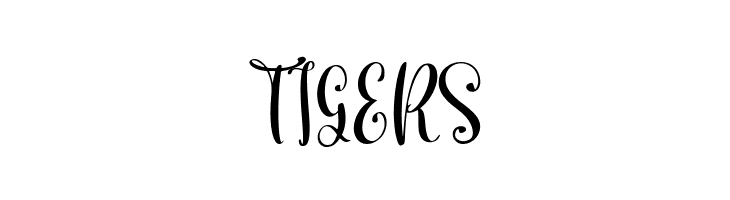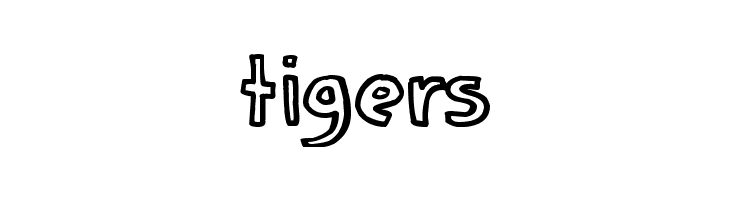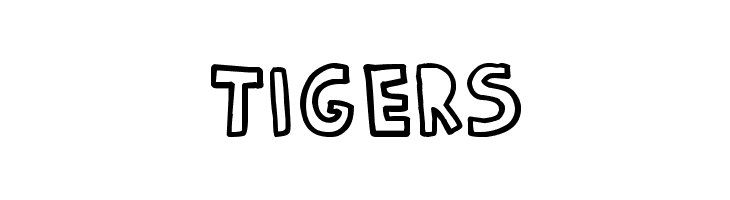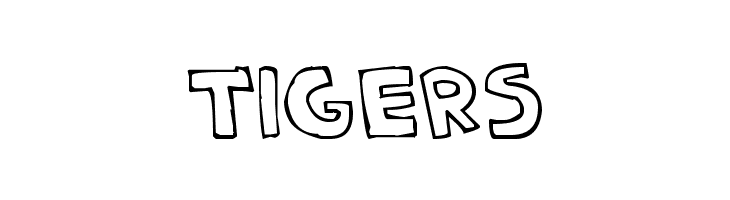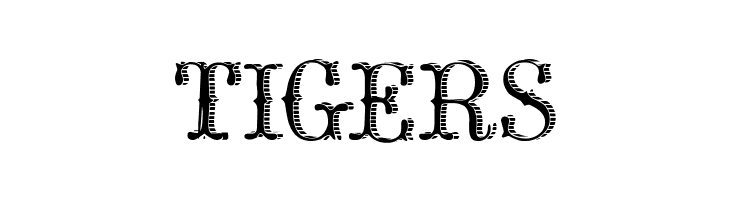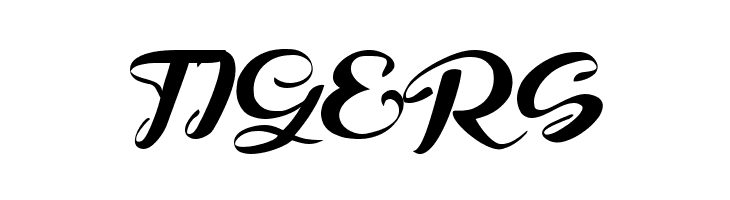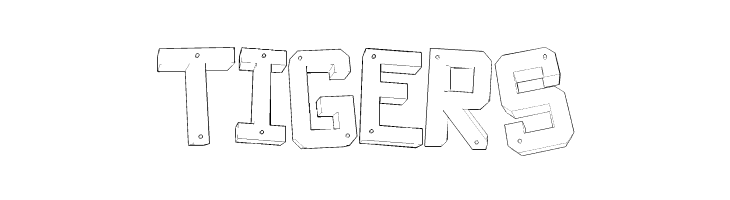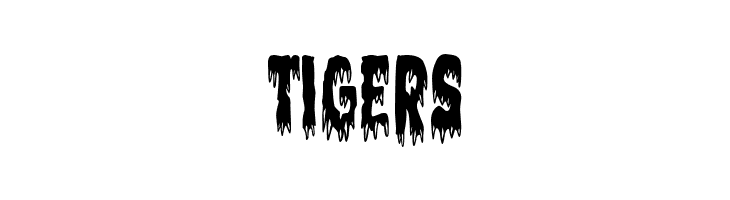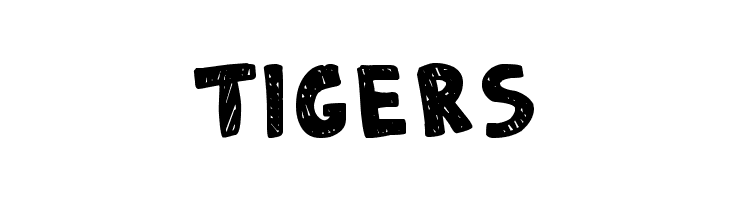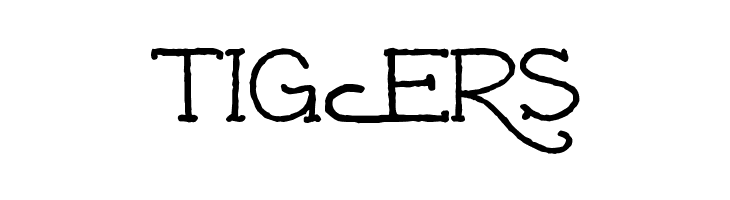
A modern, geometric sans-serif font with clean lines and excellent readability.
A modern, light, and condensed sans-serif font with a clean and streamlined appearance.
A playful and decorative font with quirky, spooky elements.
A bold, distressed font with tall, narrow letterforms and a gritty, weathered texture.
A bold, distressed gothic-style font with sharp, angular lines and a rugged texture.
A futuristic, alien-like script with smooth curves and sharp angles, perfect for sci-fi themes.
A bold, futuristic font with angular, geometric characters.
A bold, angular font with a futuristic and energetic design.
A bold, geometric font with a futuristic and industrial design.
A bold, 3D font with a dotted outline and playful style.
A bold, distressed font with a vintage woodcut style.
Geometric decahedron dice symbol font with numbers and dot patterns.
A playful, bubble-like outlined font with bold, rounded characters.
A bold, pixelated font with a retro digital style.
A bold, italicized font with a geometric, fragmented style.
A bold, italicized, pixelated font with a futuristic digital style.
A hollow, geometric font with a digital, fragmented style.
A hollow, pixelated font with a digital, futuristic style.
A modern, dotted font with geometric and digital appeal.
A decorative, vintage-style font with bold, textured characters and pronounced serifs.
An elegant, cursive script font with flowing, interconnected strokes.
A whimsical and elegant script font with flowing, ornate letters.
Bold, dripping decorative font with a horror vibe.
An edgy, artistic font with sharp angles and irregular strokes.
A playful, hand-drawn font with bold outlines and a cartoonish style.
A playful, hand-drawn font with bold, uneven strokes and a whimsical charm.
Hand-drawn, doodle-style dingbat illustrations with a playful vibe.
A playful, hand-drawn font with bold outlines and a cartoonish style.
A bold, sketchy, hand-drawn font with a playful and artistic style.